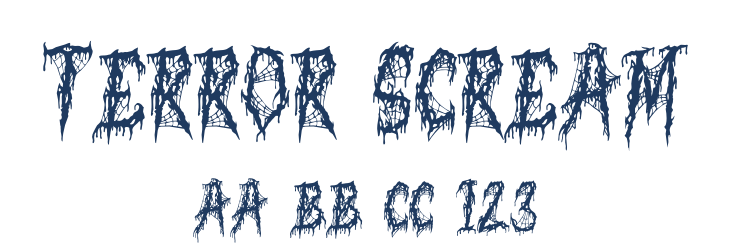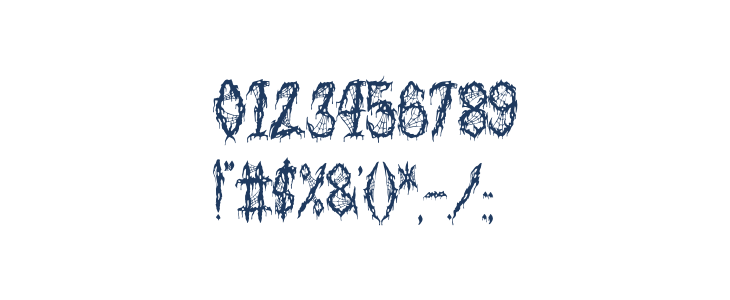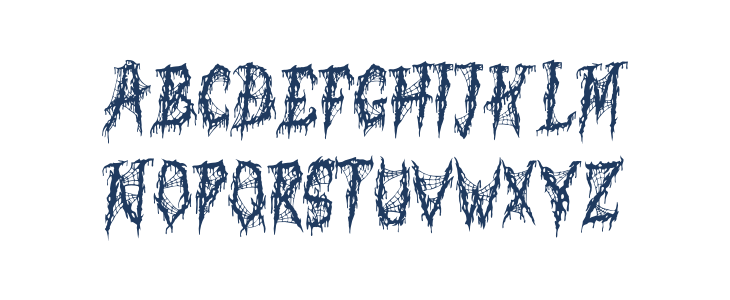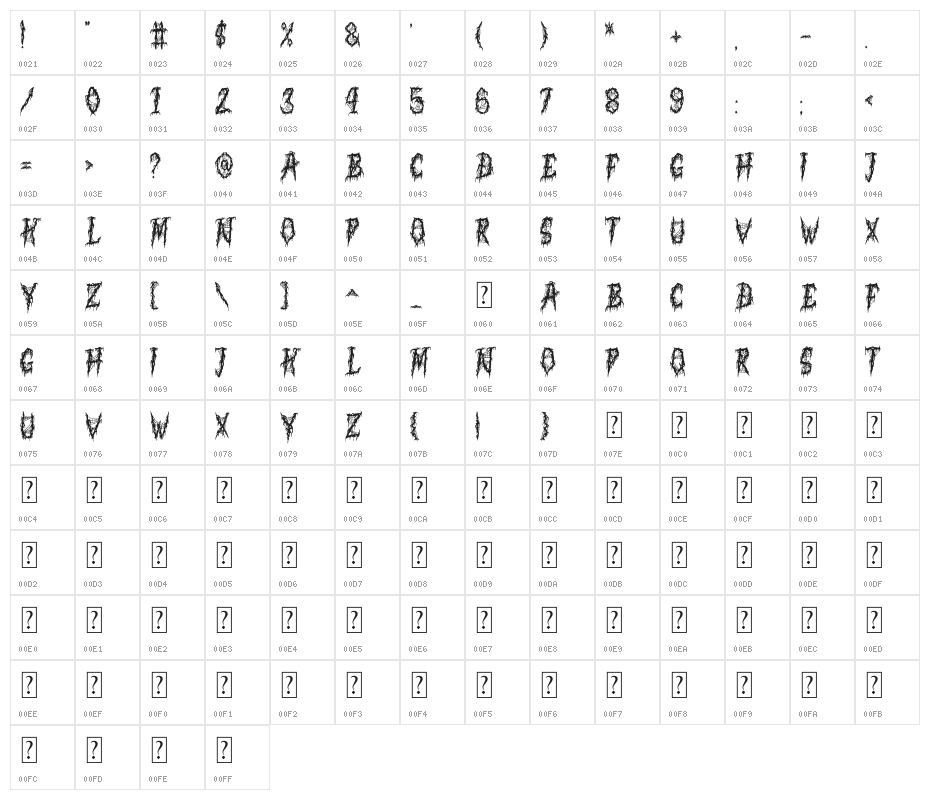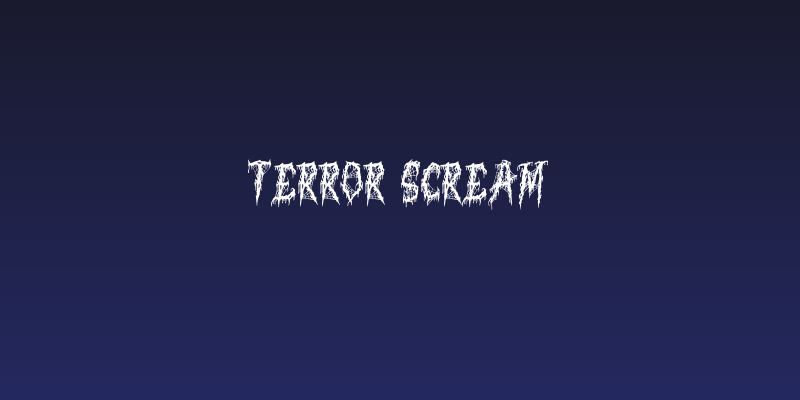
Terror Scream Font
Terror Scream Description
Highly decorative, horror-themed font with jagged, irregular letterforms resembling tangled webs or thorns, evoking a sense of fear and chaos. The characters are bold, with uneven strokes and dramatic, spiky extensions.
| Overall Style | Decorative, Horror, Spooky |
| Proposed Projects | Halloween posters, horror movie titles, haunted house flyers, spooky event branding, themed party invitations. |